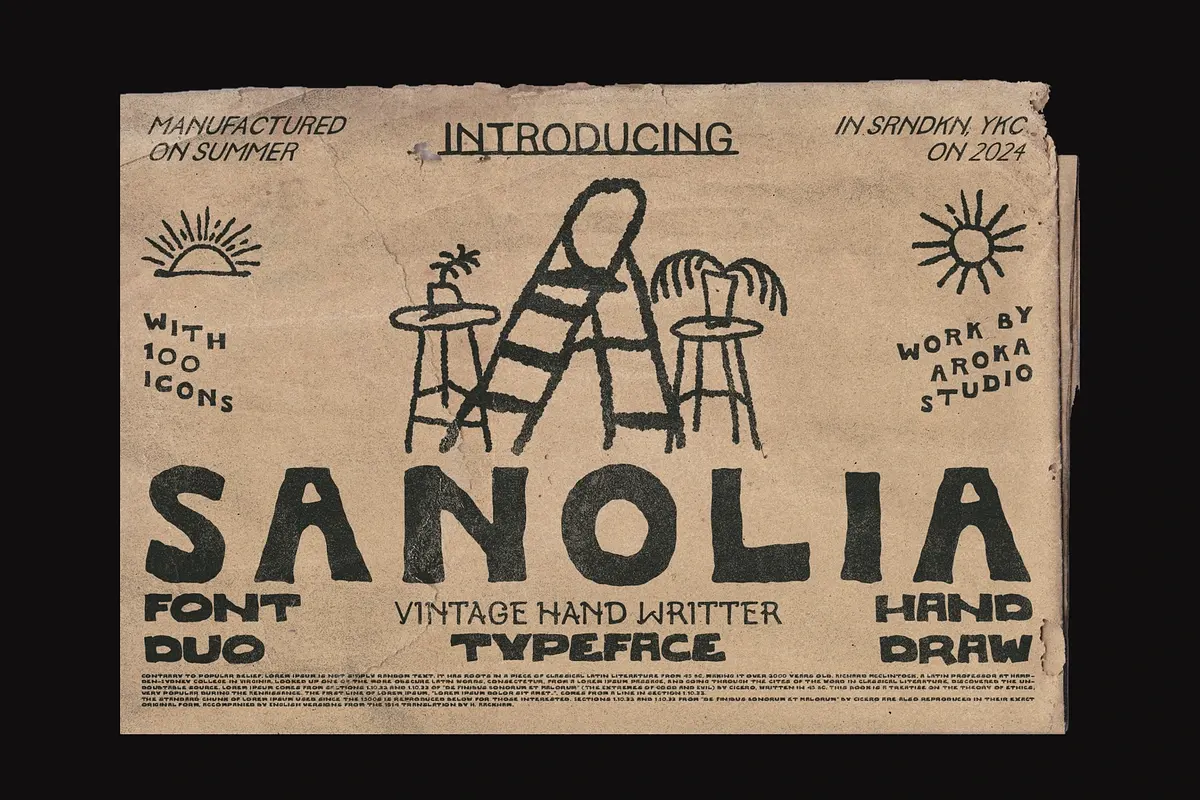
SANOLIA - HAND DRAW TYPEFACE Free Download
SANOLIA - HAND DRAW TYPEFACE Free Download is a unique and creative typeface designed to add a personal, hand-drawn touch to your designs. Featuring irregular strokes and organic letterforms, this font is perfect for creating logos, invitations, branding materials, posters, and social media content that require a whimsical, artistic flair. Its playful, informal style makes it ideal for projects that need a more relaxed, approachable feel. Whether you’re designing for a creative brand, a fun event, or crafting unique content, SANOLIA - HAND DRAW TYPEFACE Free Download allows you to explore its artistic style in personal projects before purchasing a commercial license. Add authenticity and charm to your designs with this beautifully crafted hand-drawn font.